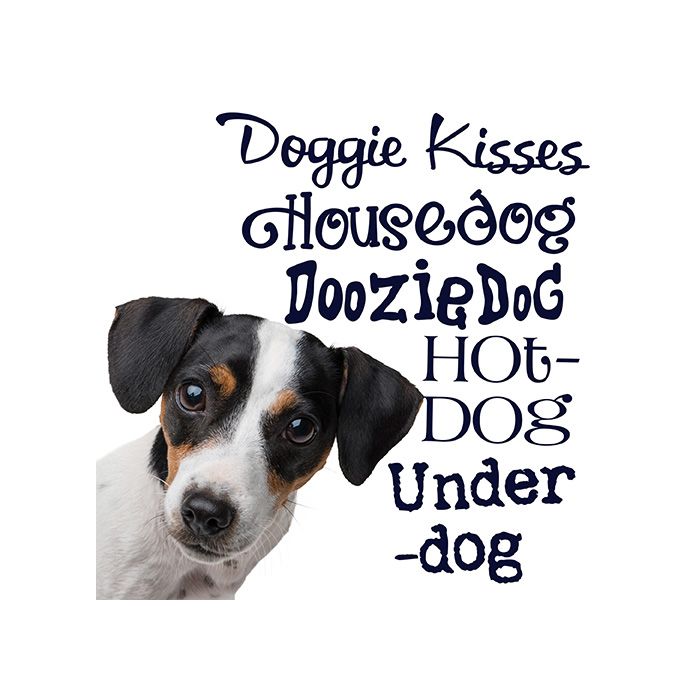
This hand-crafted font bundle features five beautiful, hand-crafted scripts all named after man's best friend, the dog.
Hand-crafted fonts can be either formal or informal, and they can be used for a variety of purposes. Some of the characteristics of handwritten fonts include: The letters are not perfectly uniform in size or shape. There may be slight variations in the spacing between letters and words. The font may have a "wiggly" or "squiggly" appearance. The font may be difficult to read at small sizes. Handwritten fonts can be a great way to add a casual touch to your designs. They can also be used to create a sense of nostalgia or whimsy. However, it is important to choose a handwritten font that is appropriate for the project you are working on. A formal handwritten font may not be appropriate for a casual invitation, while an informal handwritten font may not be appropriate for a corporate document.